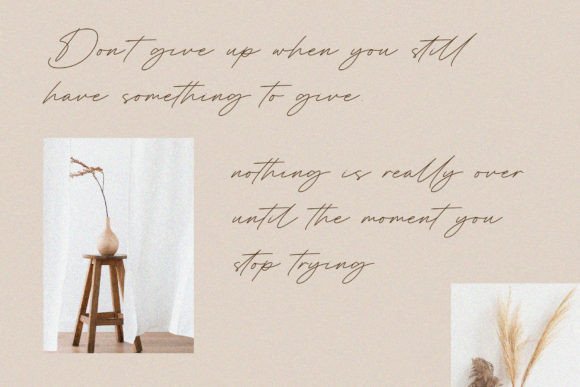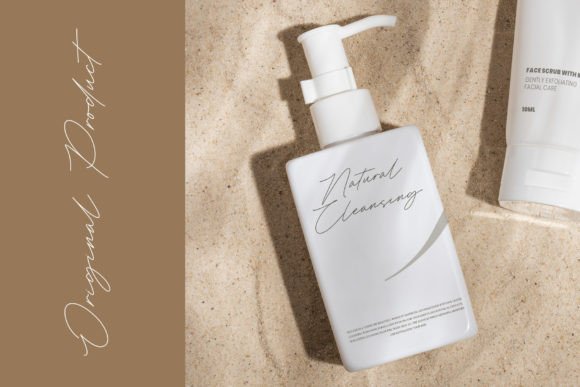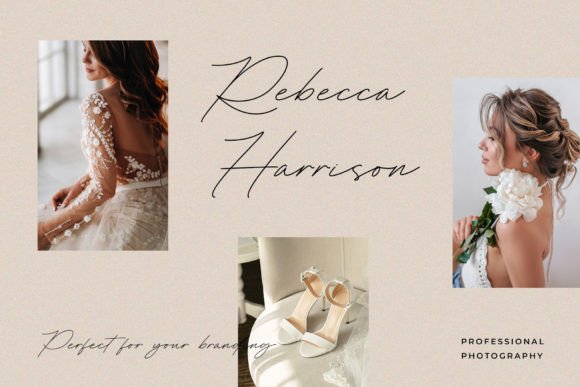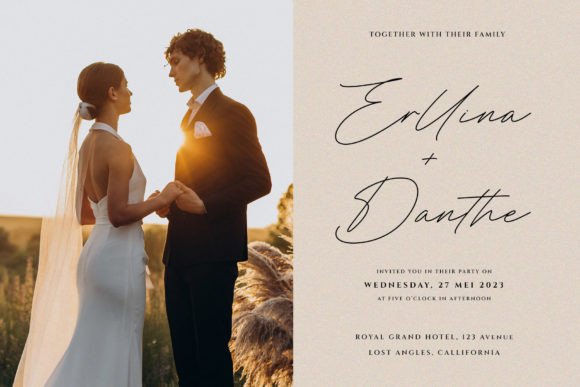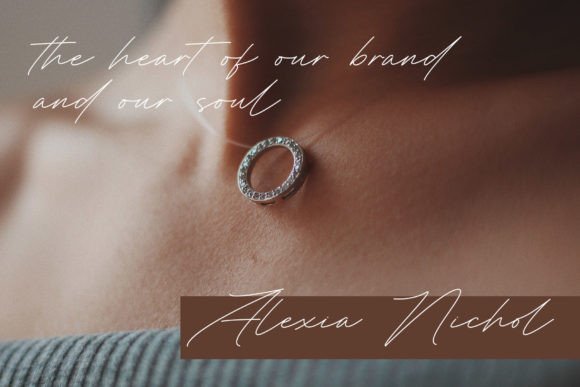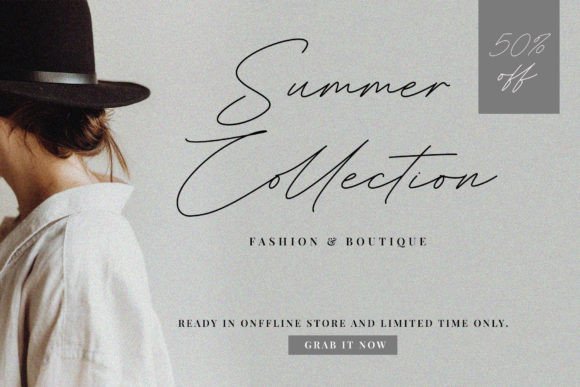
Discover the Elegance of Glendora Font: A Designer’s Paradise
Are you a designer or crafter looking for the perfect font to elevate your creative projects? Look no further than Glendora Font, a stunning typeface that is sure to impress. With its elegant and sophisticated design, Glendora is a great choice for a wide range of applications, from watermarks on photography to signature logo designs, quotes, album covers, magazines, business cards, and many other design projects.
What Makes Glendora Font So Special?
Glendora Font is a beautifully crafted typeface that boasts a unique blend of classic and modern elements. Its elegant lines, subtle curves, and refined details make it perfect for designs that require a touch of sophistication and refinement. Whether you’re creating a luxurious brand identity, a stylish magazine layout, or a professional business card design, Glendora Font is sure to make a lasting impression.
One of the standout features of Glendora Font is its incredible versatility. This font can be used in a wide range of design projects, including:
- Watermarks on photography: Add a touch of elegance to your photos with Glendora Font, perfect for protecting your work while maintaining a professional look.
- Signature logo designs: Create a lasting impression with a custom logo design featuring Glendora Font, ideal for businesses, artists, and creatives.
- Quotes and typography: Use Glendora Font to create stunning quote designs, perfect for social media, posters, and other marketing materials.
- Album covers: Give your music a professional edge with Glendora Font, suitable for album covers, CD designs, and music branding.
- Magazines and publications: Elevate your magazine or publication with Glendora Font, perfect for headings, titles, and body text.
- Business cards: Create a professional and stylish business card design with Glendora Font, ideal for networking and marketing.
Why Choose Glendora Font?
So, why should you choose Glendora Font for your design projects? Here are just a few compelling reasons:
- Elegant and sophisticated design: Glendora Font boasts a refined and luxurious aesthetic that is sure to impress.
- High-quality and legible: With its clear and precise lines, Glendora Font is perfect for both print and digital designs.
- Versatile and adaptable: Use Glendora Font in a wide range of design projects, from small-scale designs to large-scale publications.
Tips for Using Glendora Font
To get the most out of Glendora Font, here are a few expert tips:
- Pair with complementary fonts: Combine Glendora Font with other fonts to create a unique and visually appealing design.
- Experiment with colors and textures: Add depth and interest to your design with different colors, textures, and backgrounds.
- Pay attention to typography: Use Glendora Font to create a clear visual hierarchy, ensuring your design is easy to read and understand.
In conclusion, Glendora Font is an exceptional typeface that offers a world of creative possibilities for designers and crafters. With its elegant design, versatility, and high-quality lines, Glendora Font is the perfect choice for a wide range of design projects. Whether you’re creating a luxurious brand identity, a stylish magazine layout, or a professional business card design, Glendora Font is sure to make a lasting impression. So why wait? Discover the elegance of Glendora Font today and take your designs to the next level!